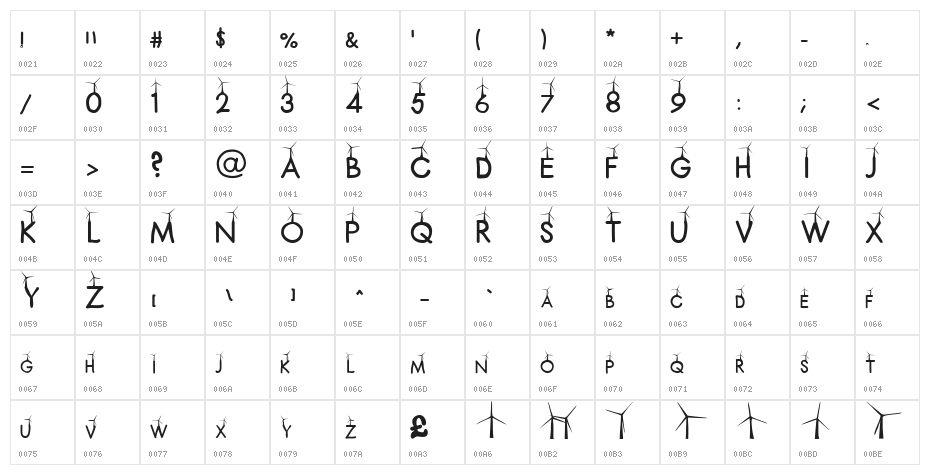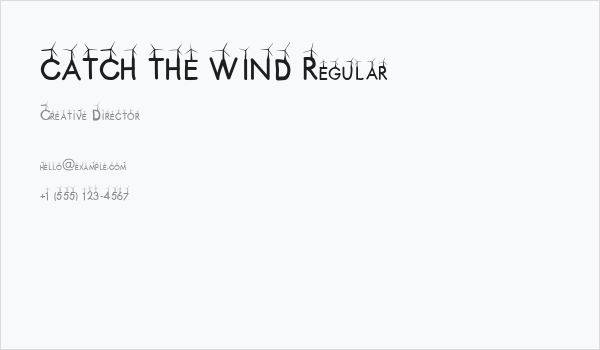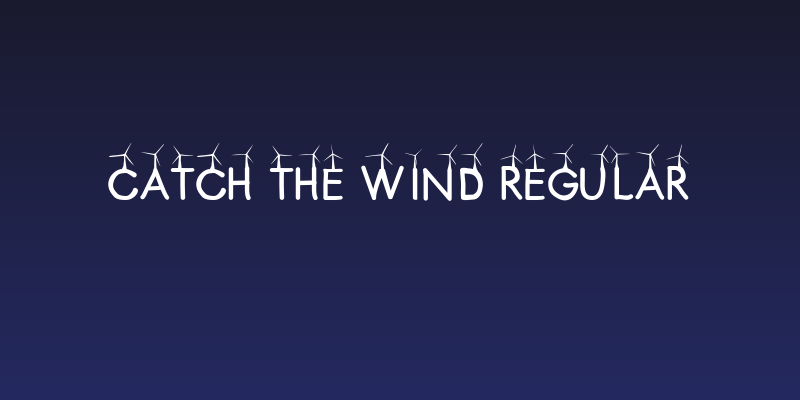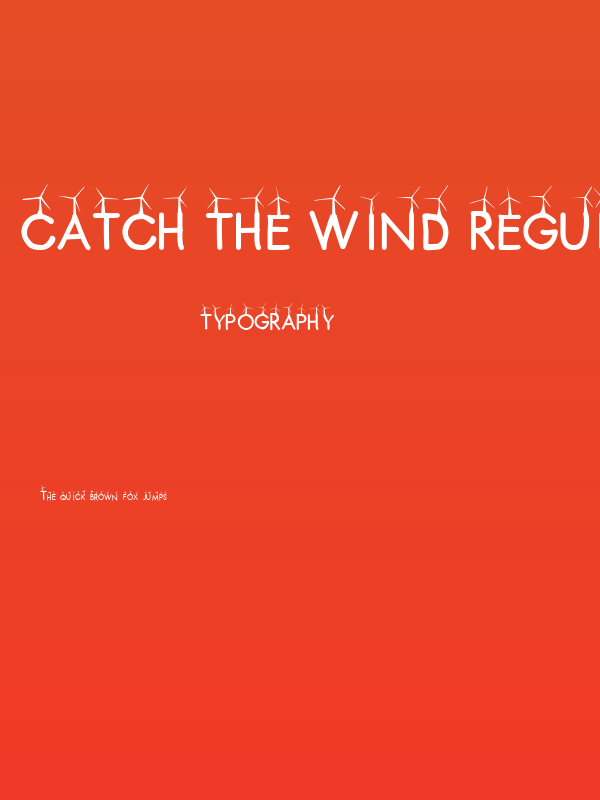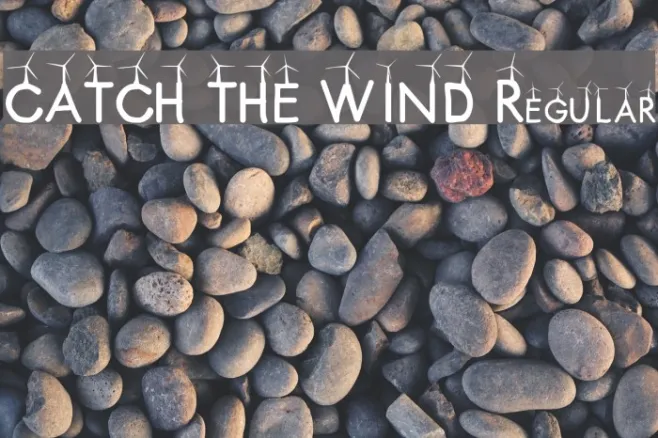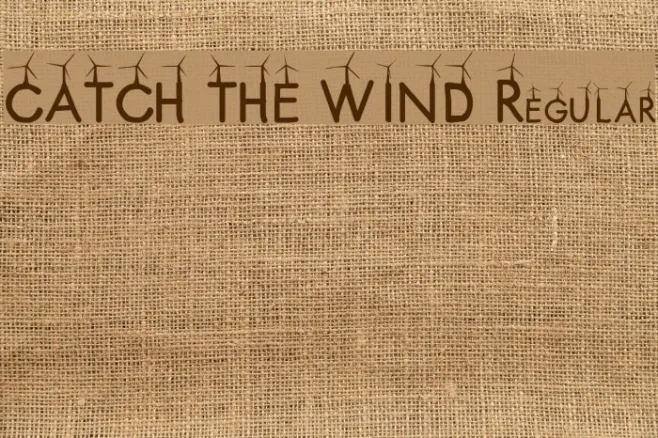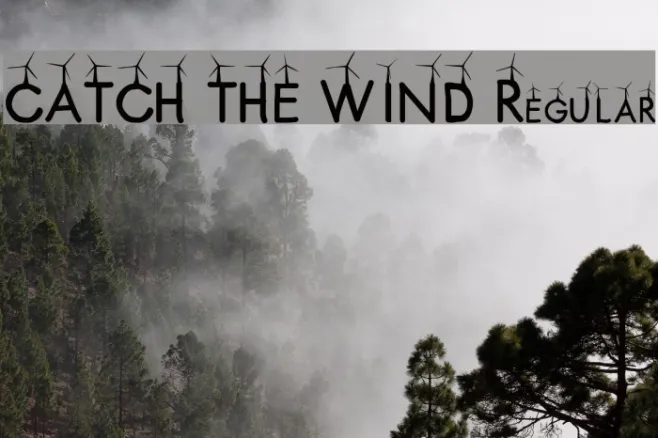
CATCH THE WIND Regular Font
CATCH THE WIND Regular Description
This font features a unique and playful design, incorporating wind turbine elements into each character. The uppercase and lowercase letters maintain a consistent style, with the wind turbine blades extending from the top of each character, adding a whimsical and dynamic touch. The numbers and special characters follow the same theme, ensuring a cohesive look across all elements. The font's overall appearance is bold and eye-catching, making it suitable for creative and environmental-themed projects.
| Proposed Projects | Ideal for eco-friendly branding, environmental campaigns, children's books, and creative posters. |